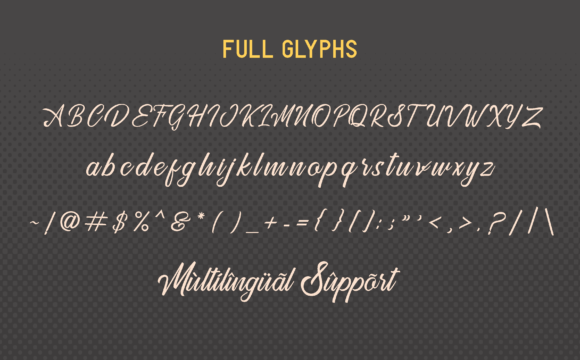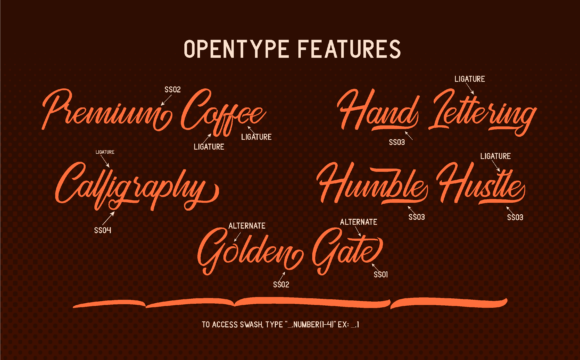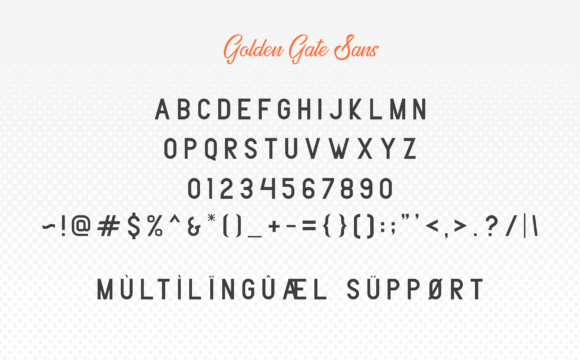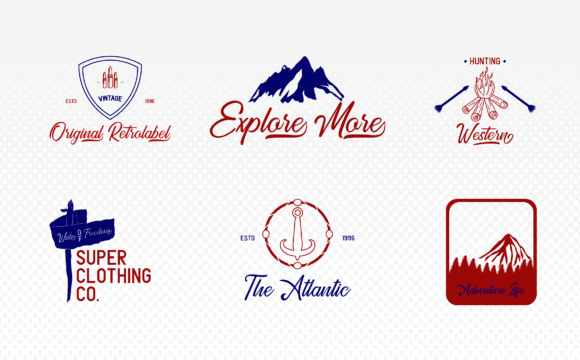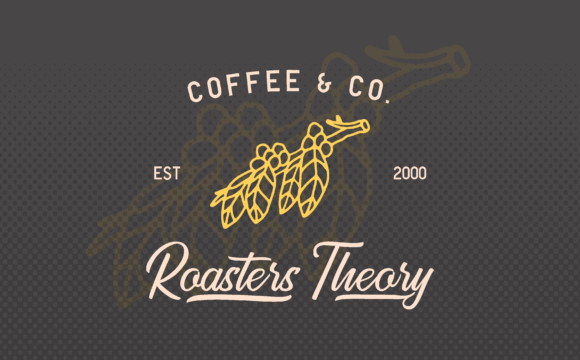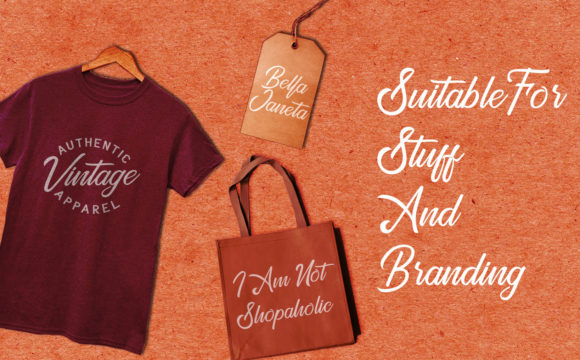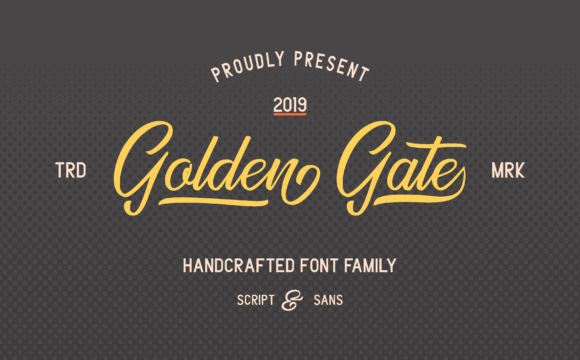
Golden Gate Duo Font
About Golden Gate Duo Font
The Golden Gate is a striking handwritten font duo. It includes a bold sans version and an elegant script version, which can be combined perfectly.
It’s suitable for branding, logos, posters, titles, and much more.